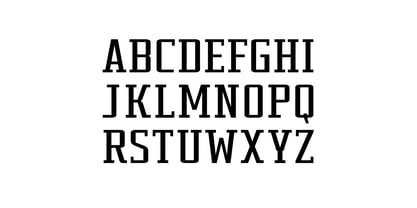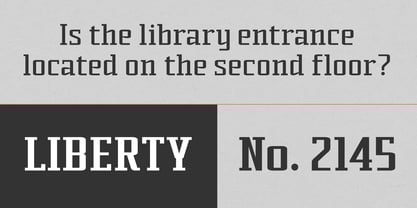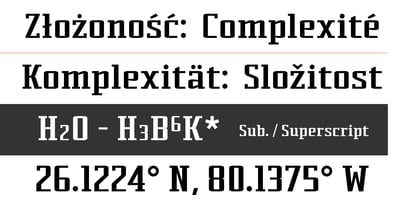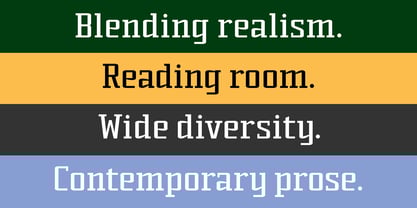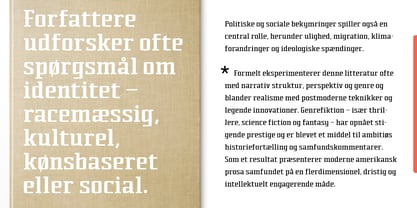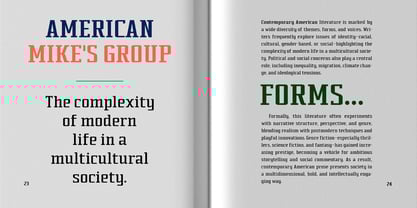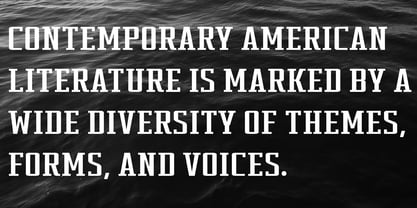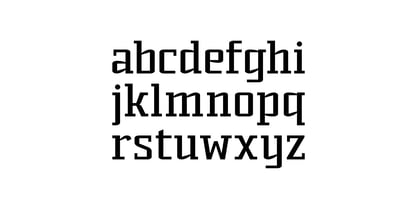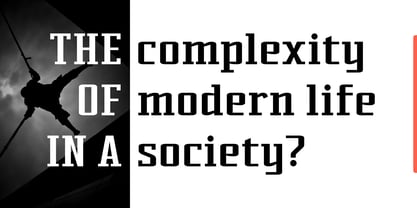
Orant
by Vertigo
The Orant Font Family was designed by Adam Ryszewski and published by Vertigo. Orant contains 2 styles and family package options. More about this family
Orant is a modern slab-serif typeface with a distinctly geometric structure and strong, block-like serifs that give it a bold, industrial character. Its stable proportions, clear rhythm, and solid visual weight make it highly effective for headlines, posters, and any design that relies on striking, attention-grabbing typography. Combining a contemporary edge with subtle retro influences, Orant maintains both personality and readability. It performs particularly well in title compositions, offering a cohesive, confident look that reinforces a project’s modern yet classically grounded aesthetic.
Designers: Adam Ryszewski
Foundry: Vertigo